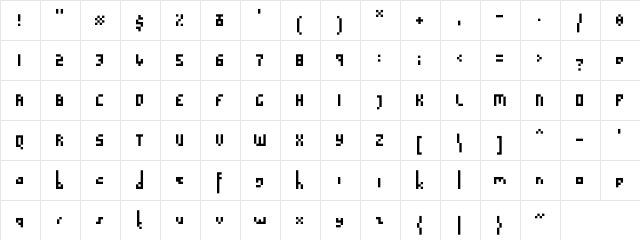
mode Regular
Design Context for mode Typeface
mode takes a measured approach to typography — its balanced proportions and neutral character make it a reliable workhorse for both digital and print work.